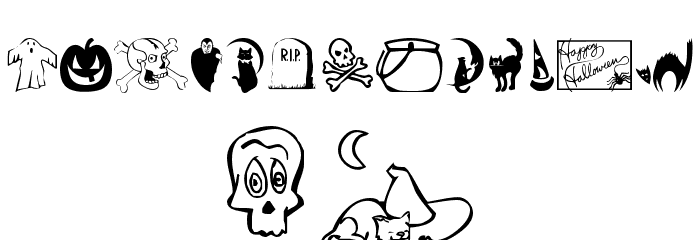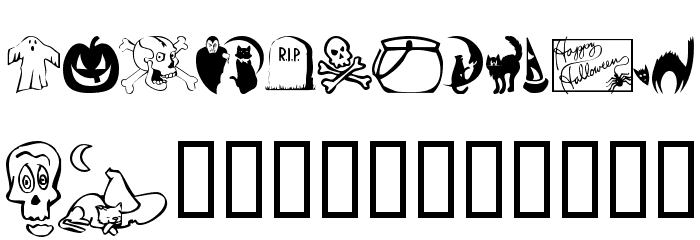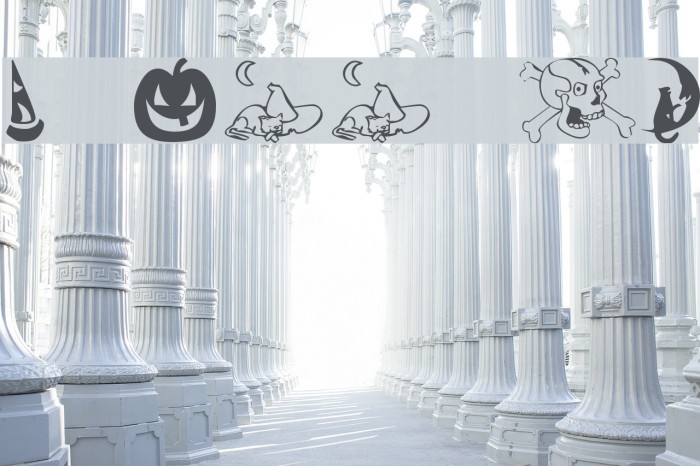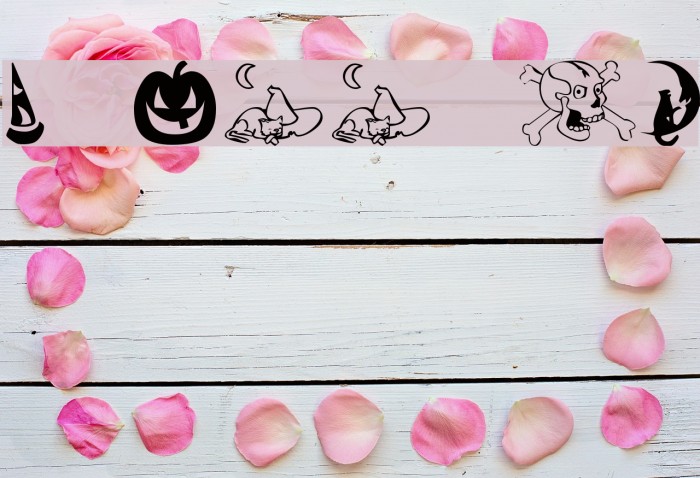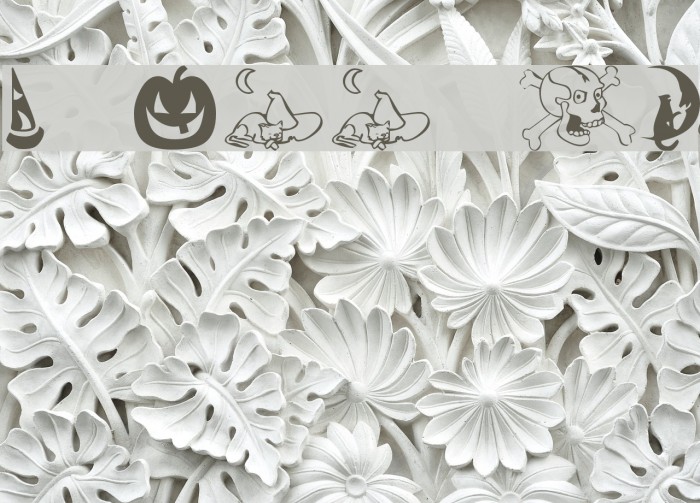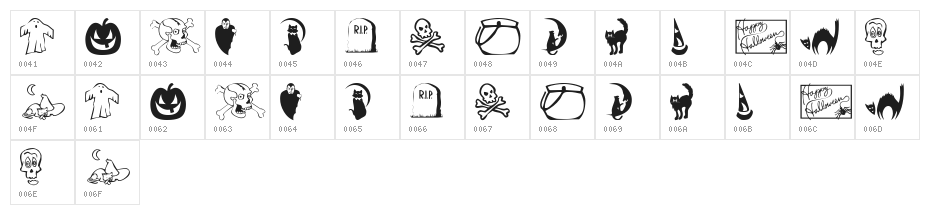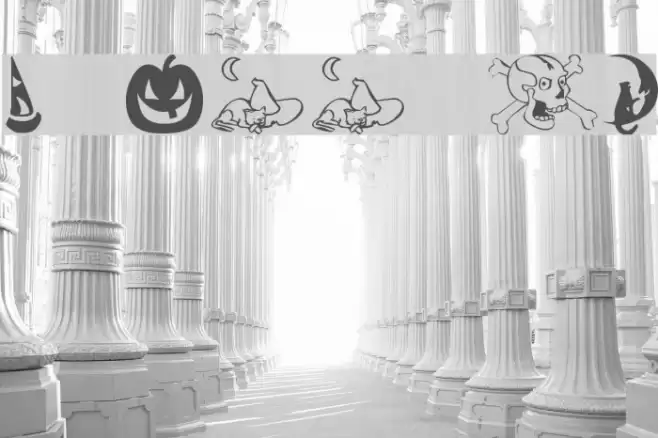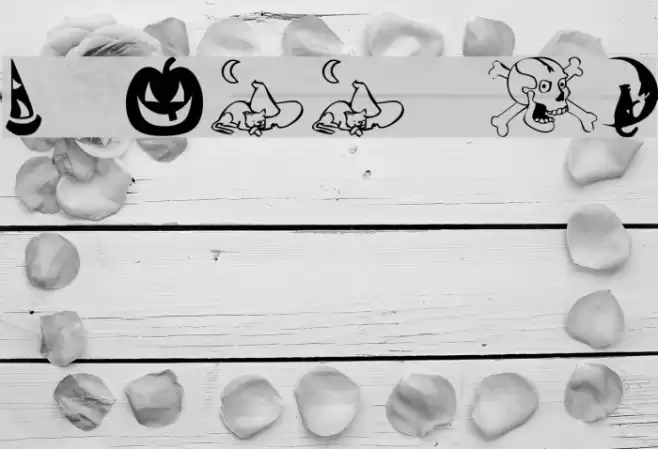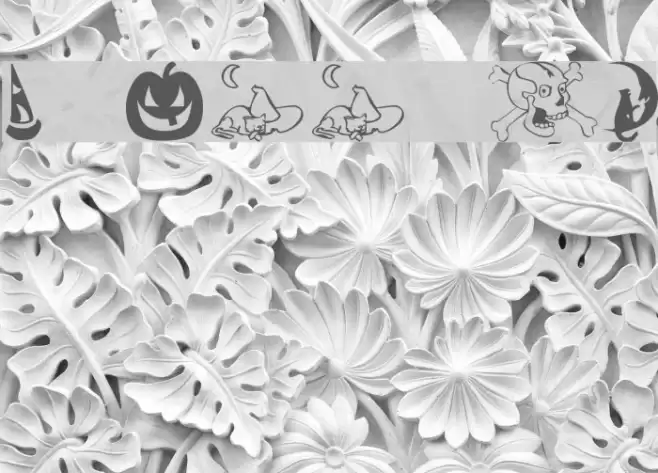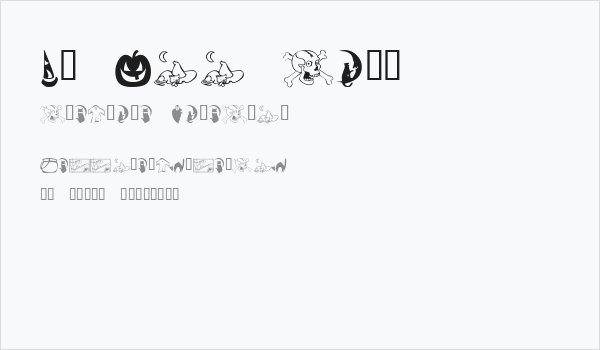
KR Boo City Font
This is a decorative font featuring a variety of Halloween-themed icons. Each character is represented by a unique illustration, including ghosts, pumpkins, skulls, owls, tombstones, and other spooky elements. The style is playful and cartoonish, making it ideal for festive and themed projects. The characters are bold and easily recognizable, with a consistent line thickness that adds to the whimsical nature of the font. The overall design is cohesive, with each icon fitting seamlessly into the Halloween theme.
A playful, Halloween-themed decorative font with cartoonish icons.
- Proposed Projects: Ideal for Halloween party invitations, themed posters, greeting cards, and festive decorations.